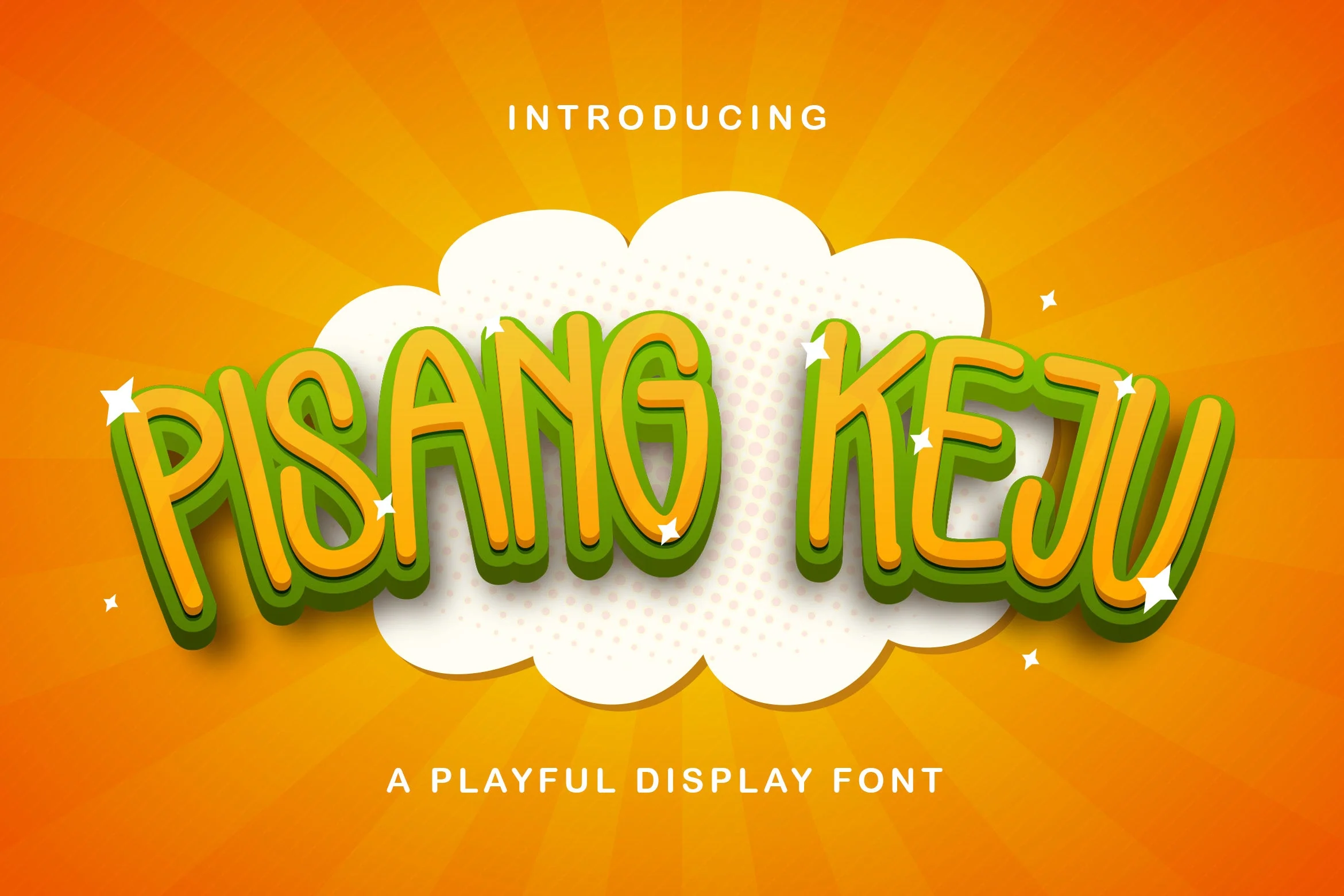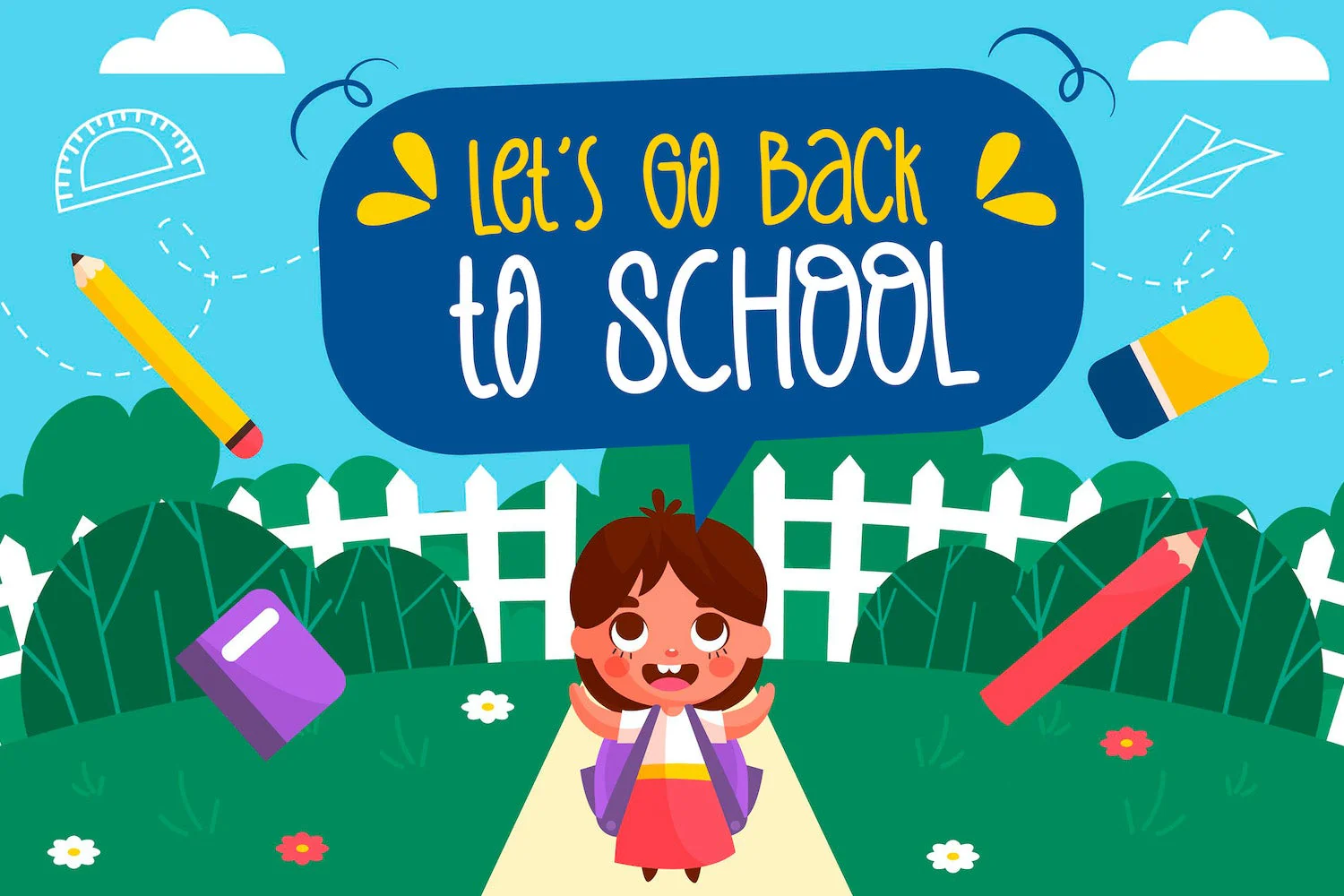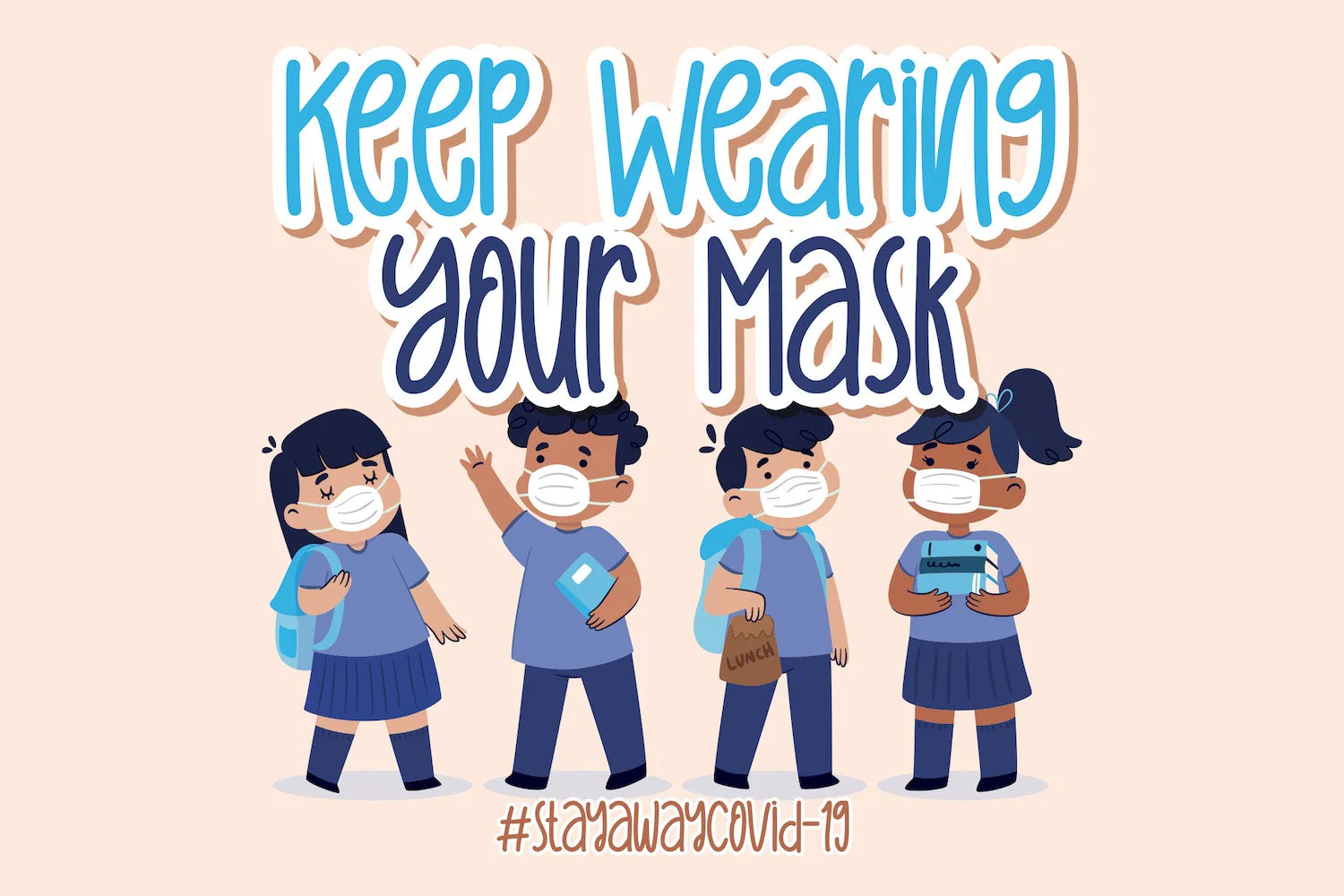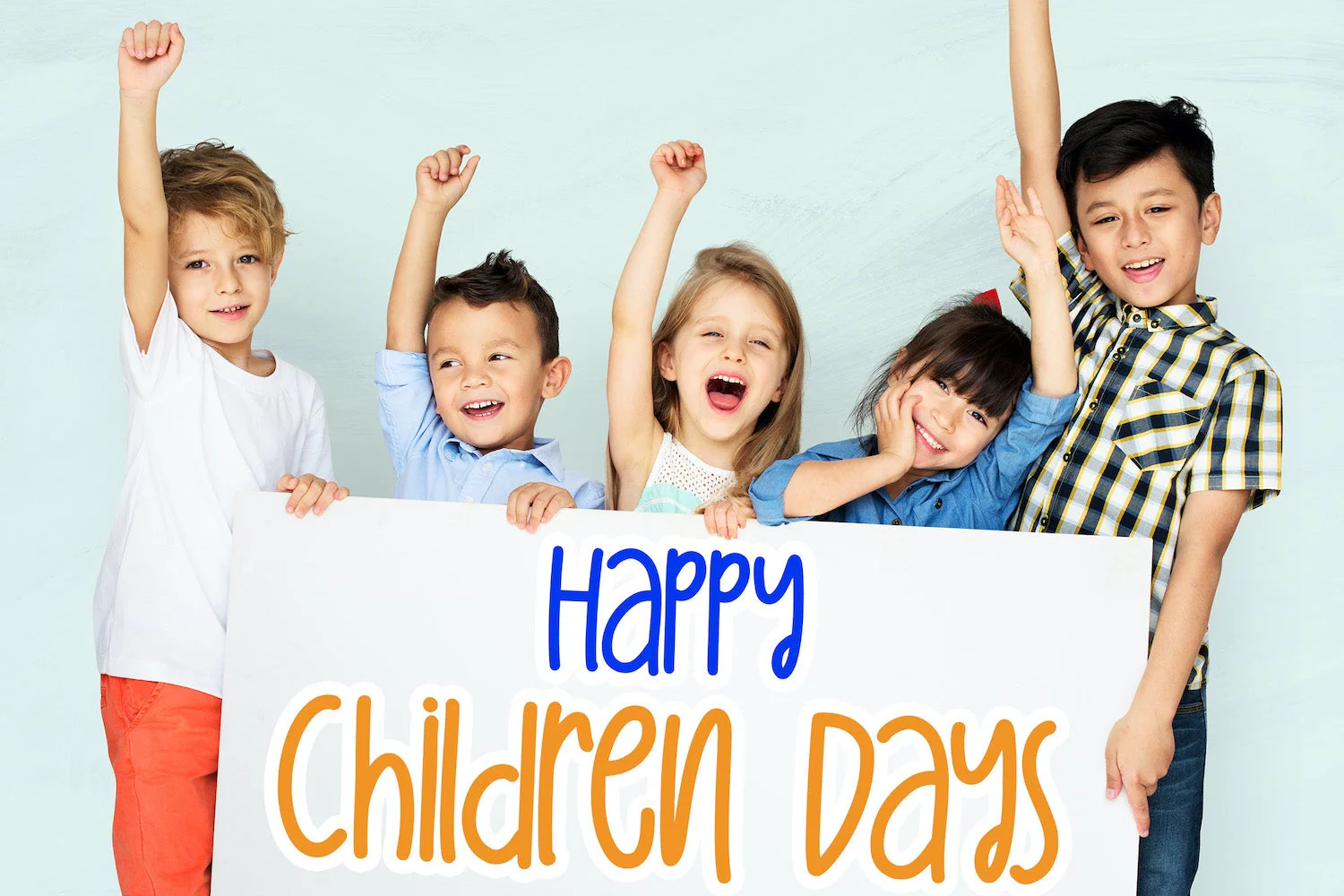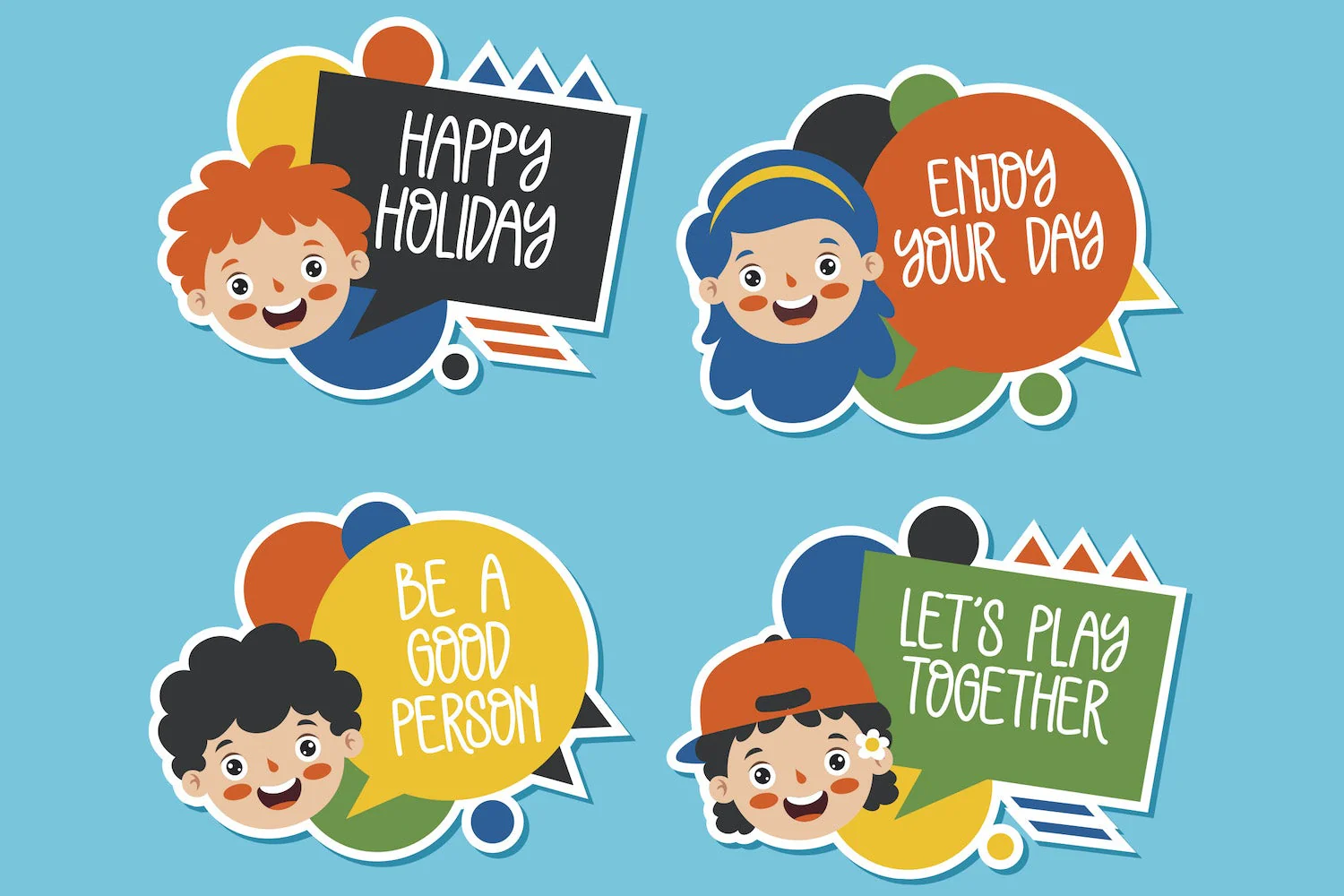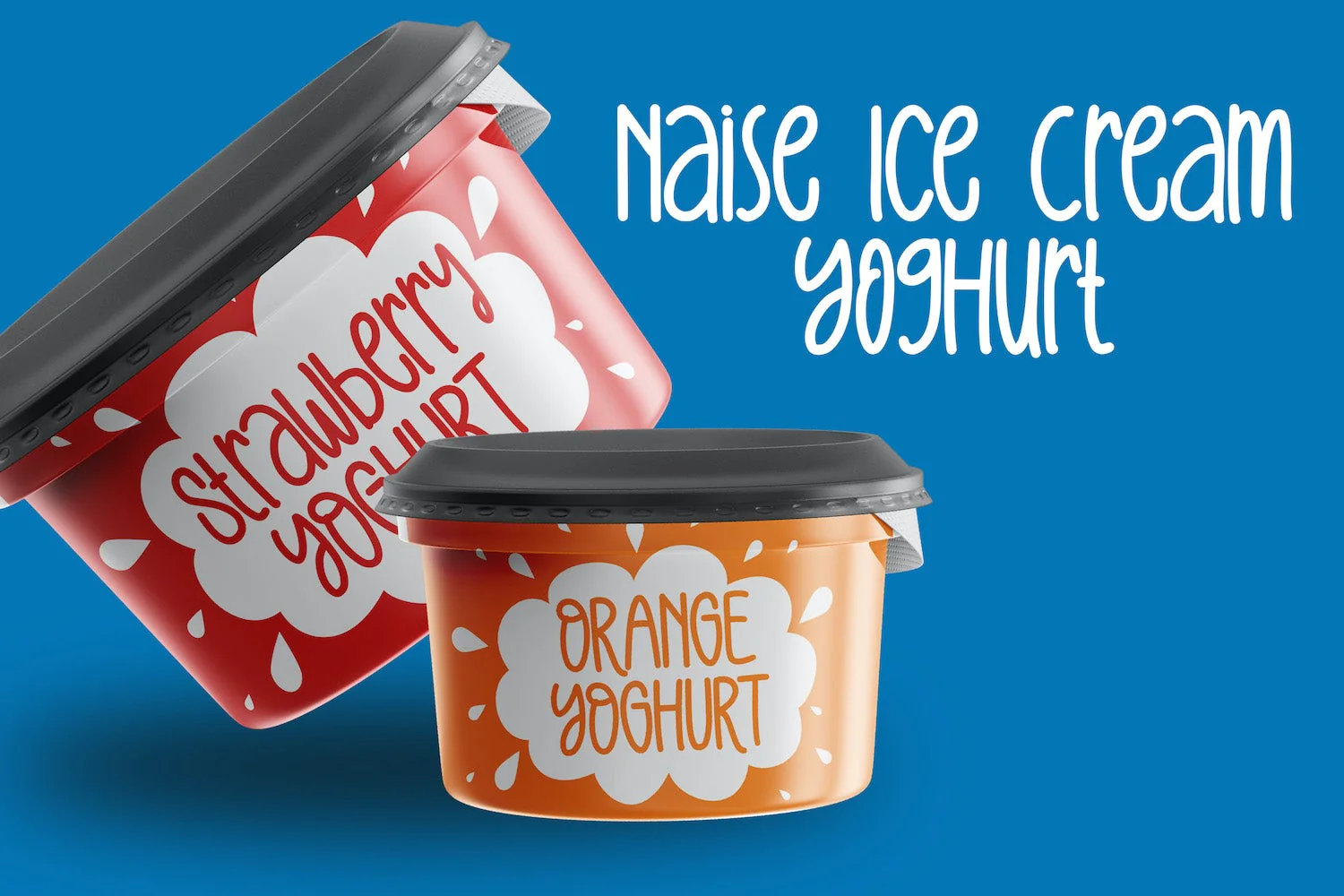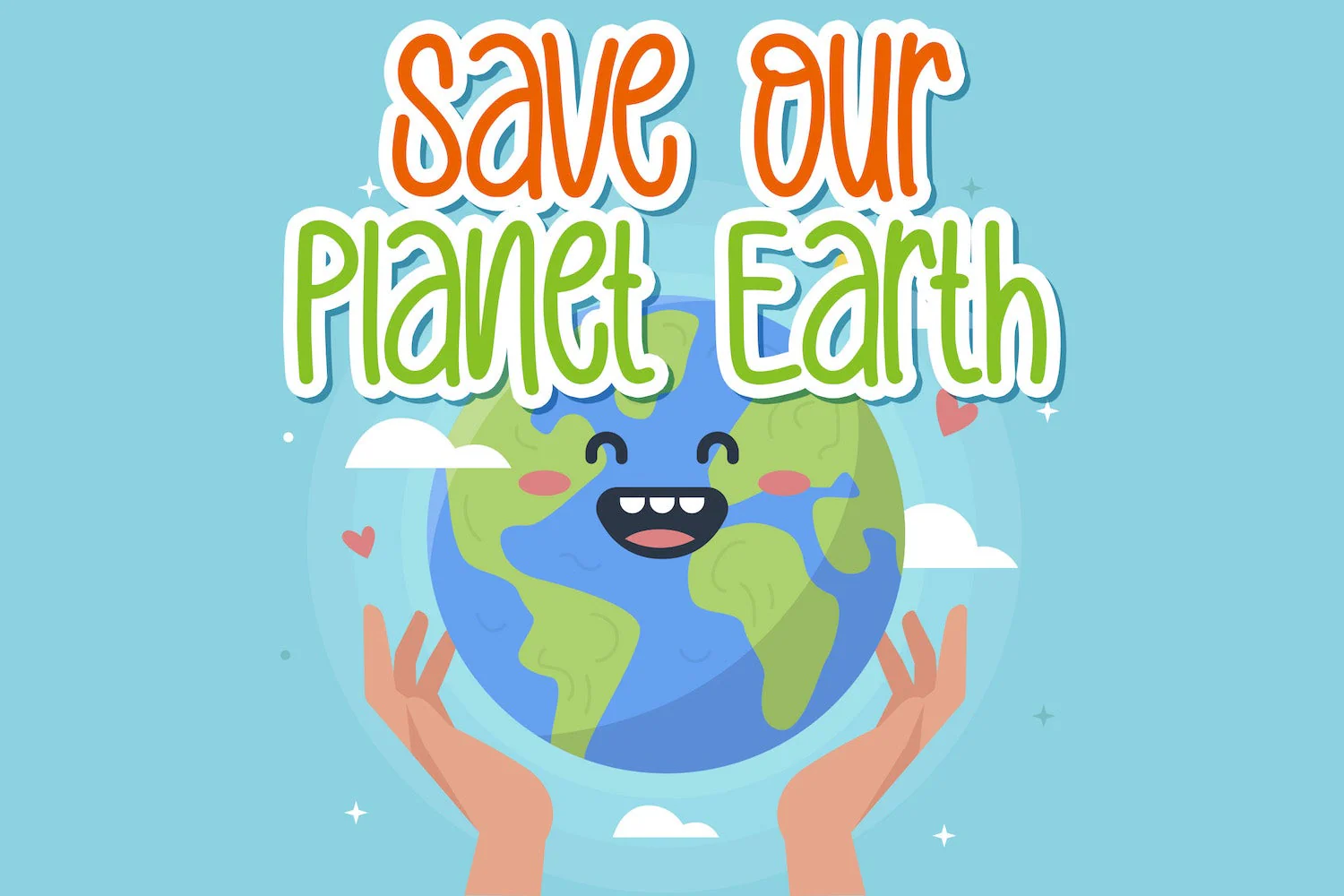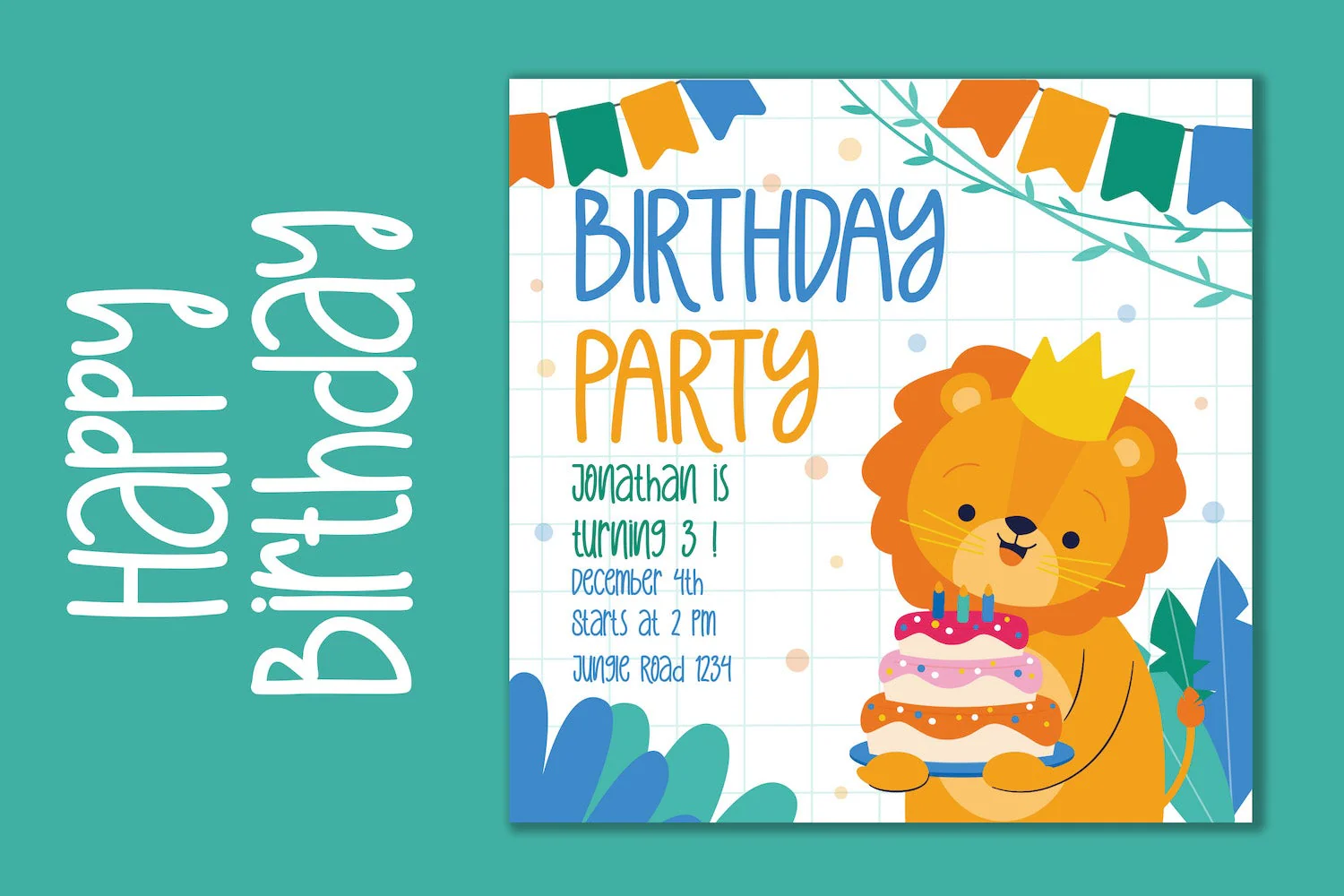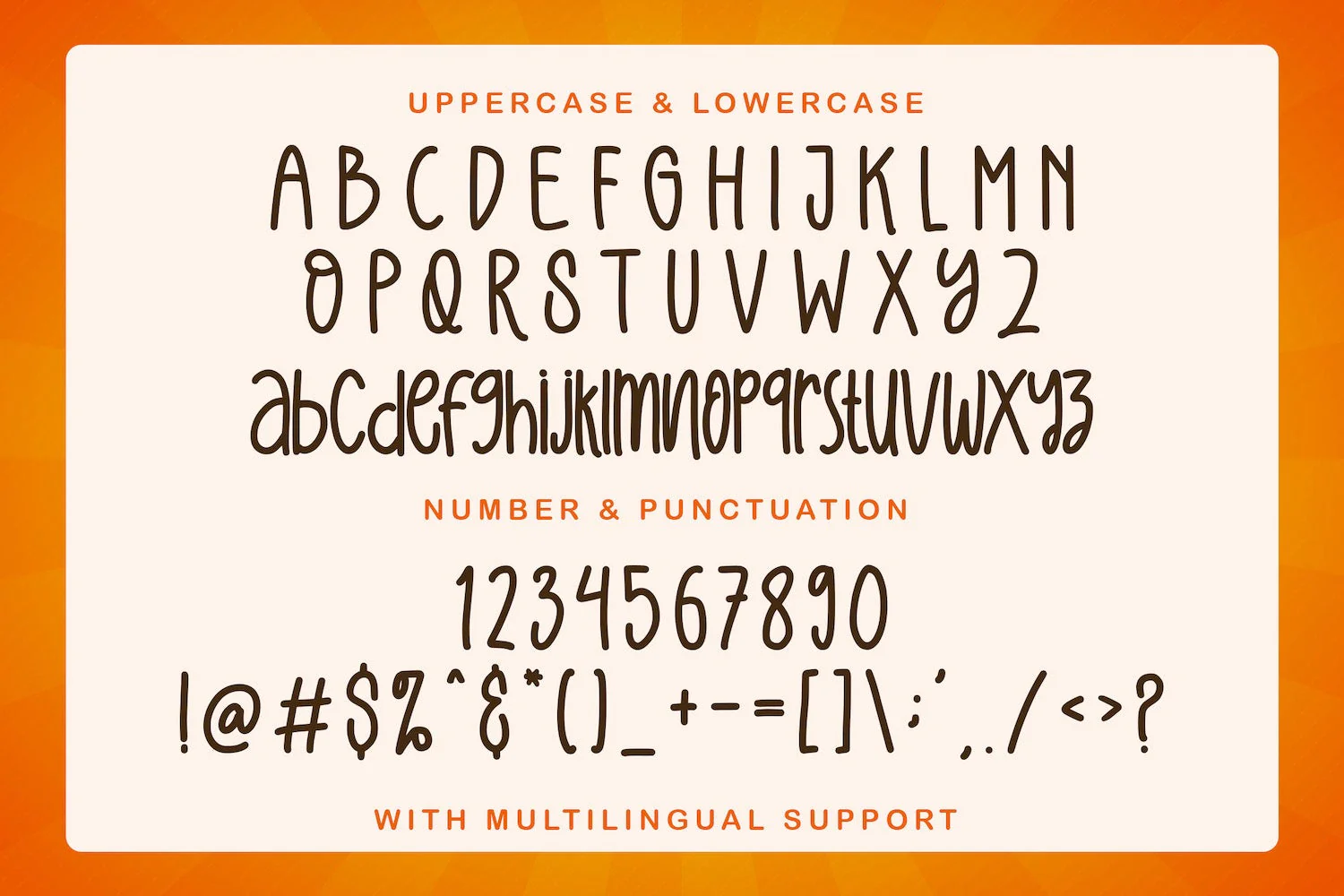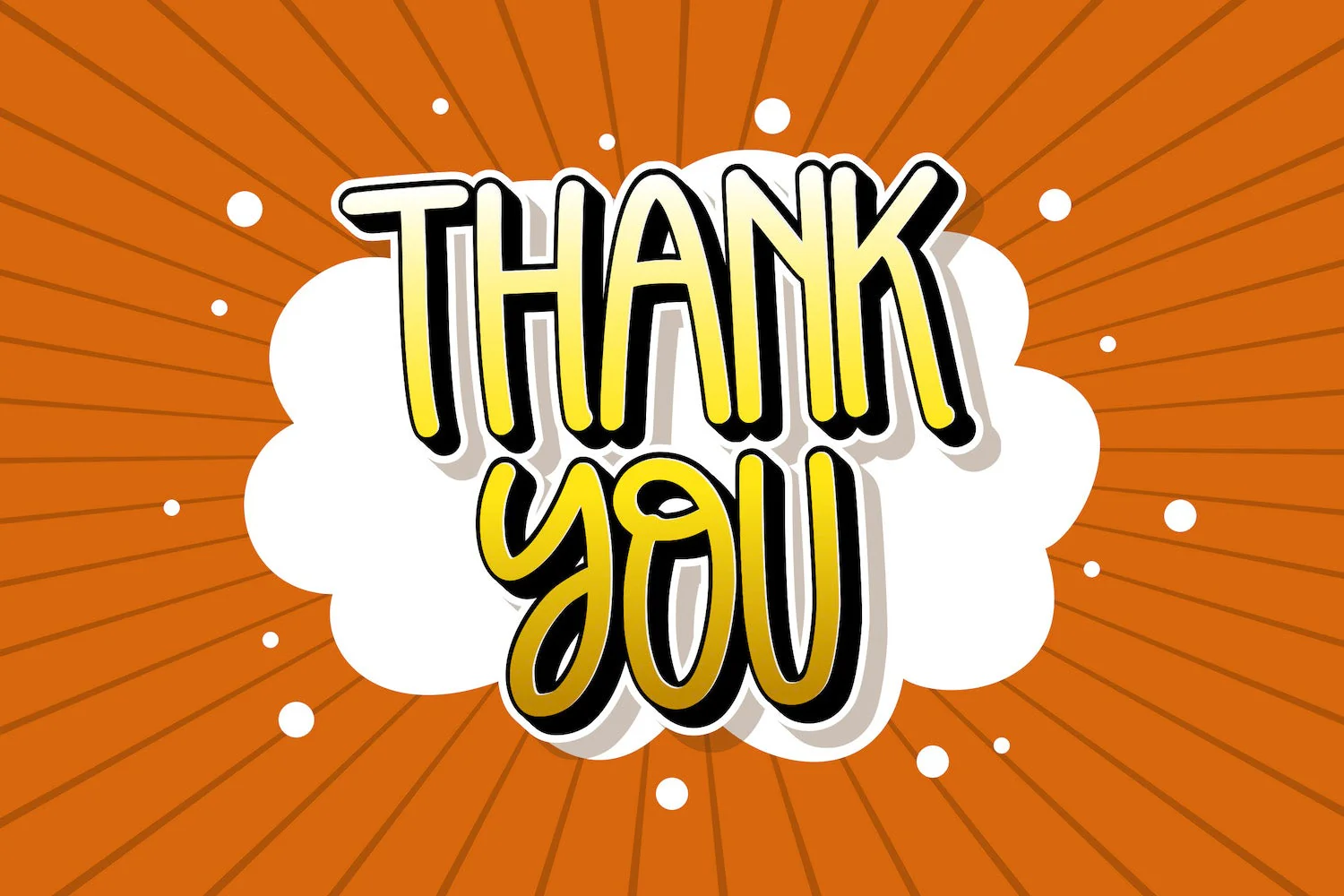
Pisang Keju - Playful Display Font
Introducing Pisang Keju - Playful Display Font
Pisang Keju is a fun display font. Playful and fresh, this font will be a hit for each of your children or school projects!
Introducing Pisang Keju - Playful Display Font
Pisang Keju is a fun display font. Playful and fresh, this font will be a hit for each of your children or school projects!